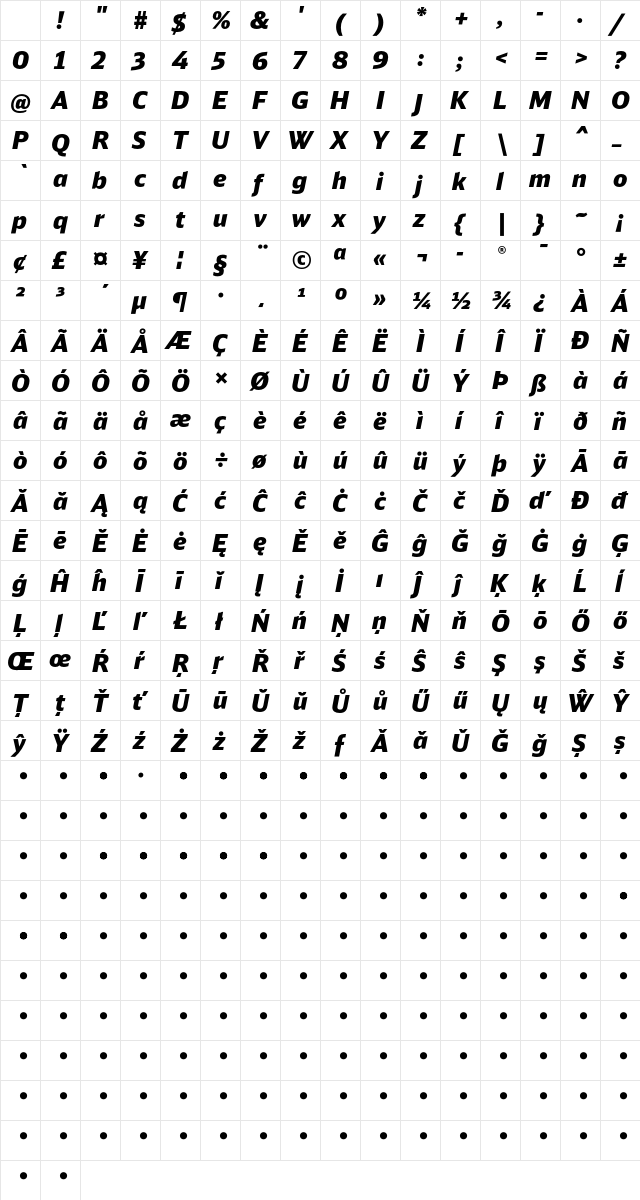
Complete DB Head Black Italic glyph index. Displaying only characters natively supported by DB Head Black Italic font.
DB Head is a composed and adaptable typeface that performs quietly and consistently across a wide range of design contexts. The slanted form adds forward momentum and visual energy.